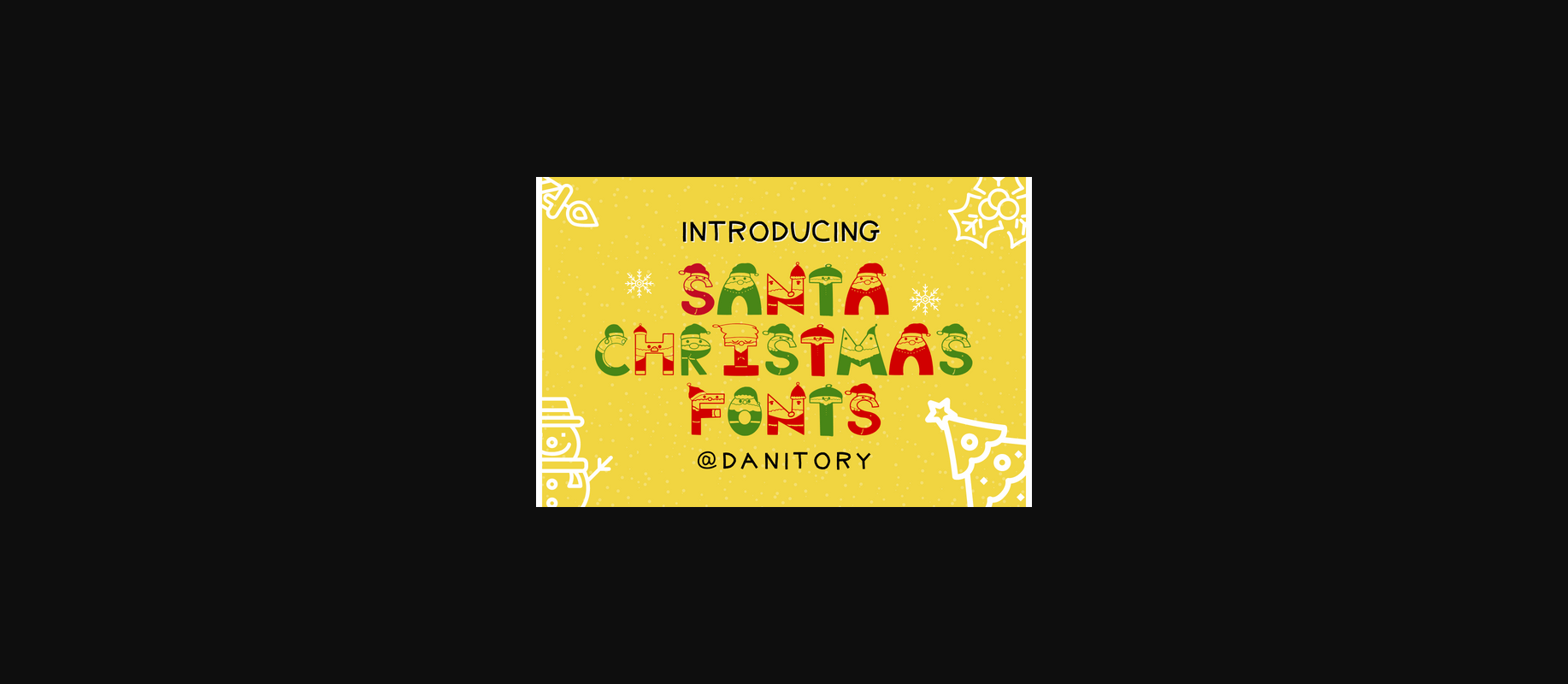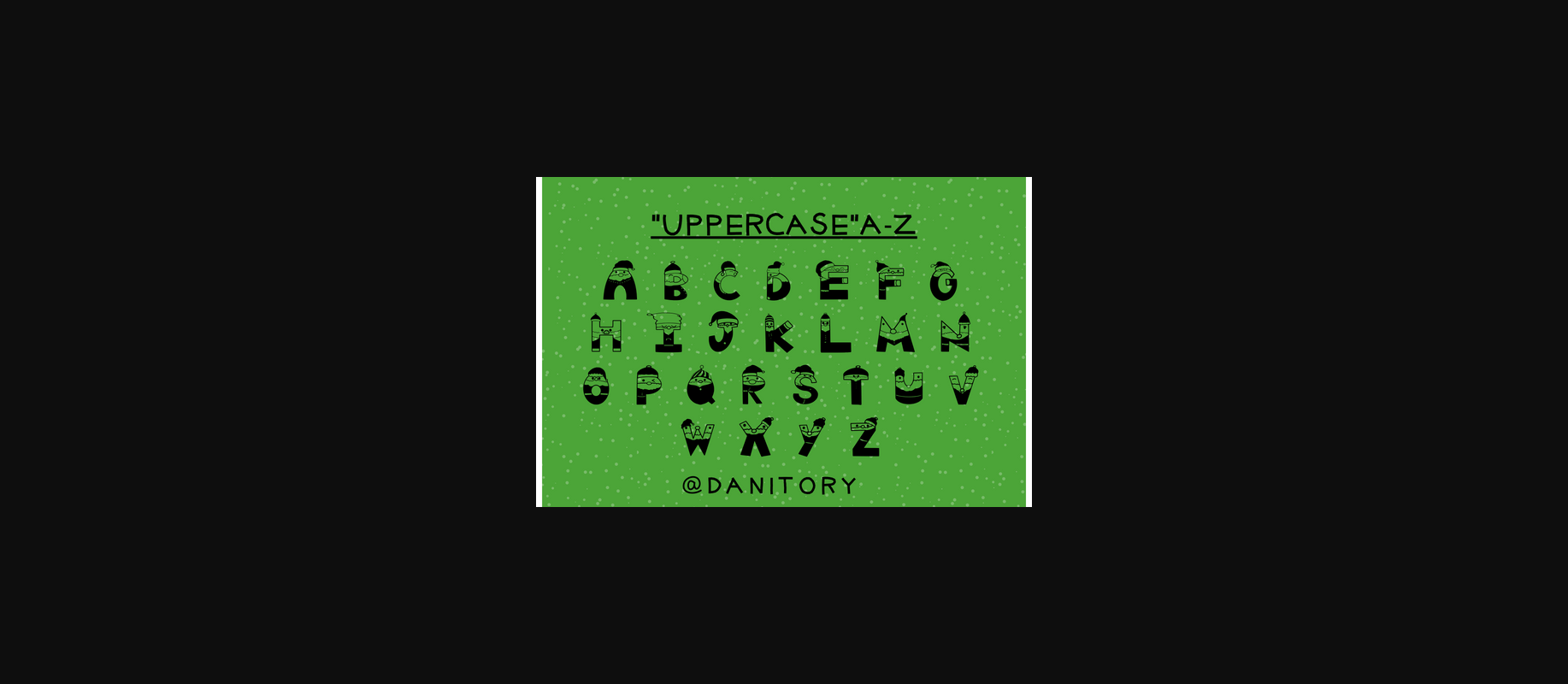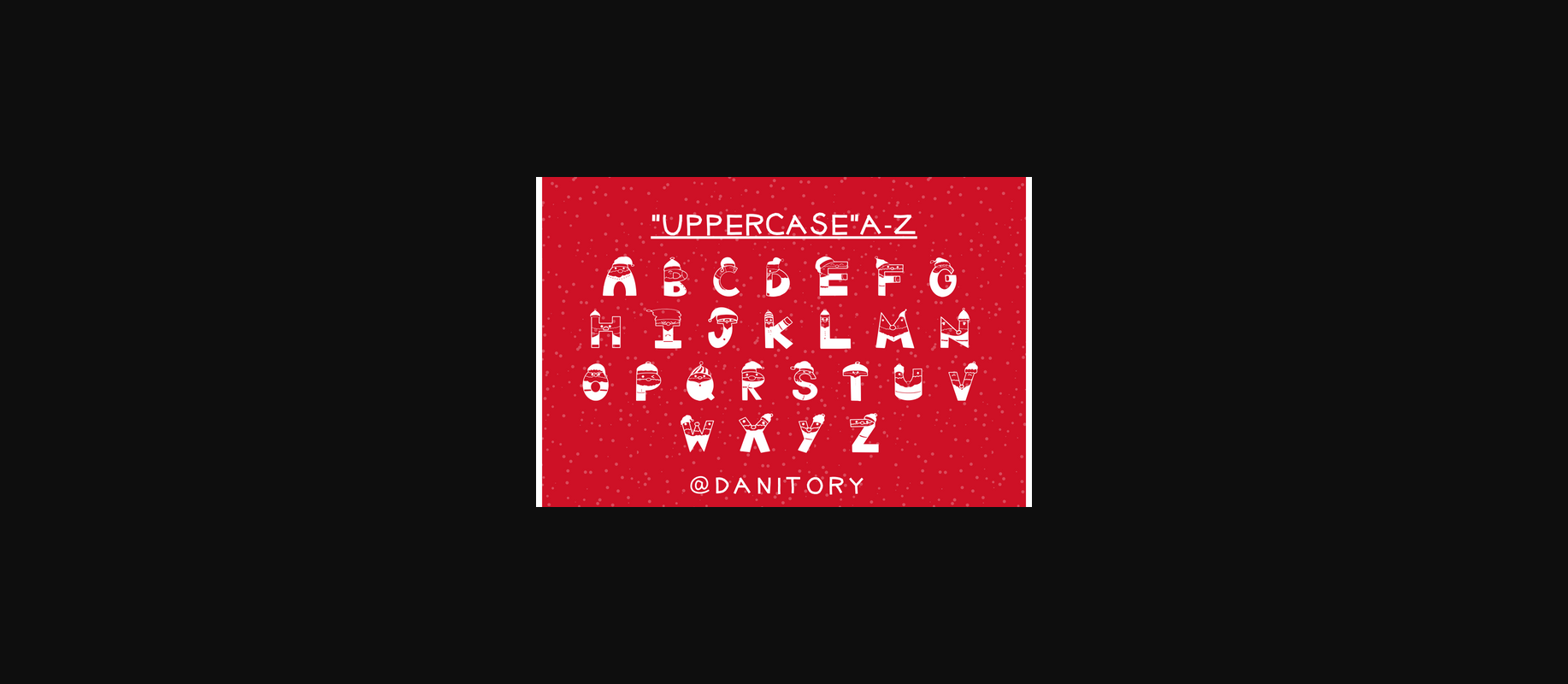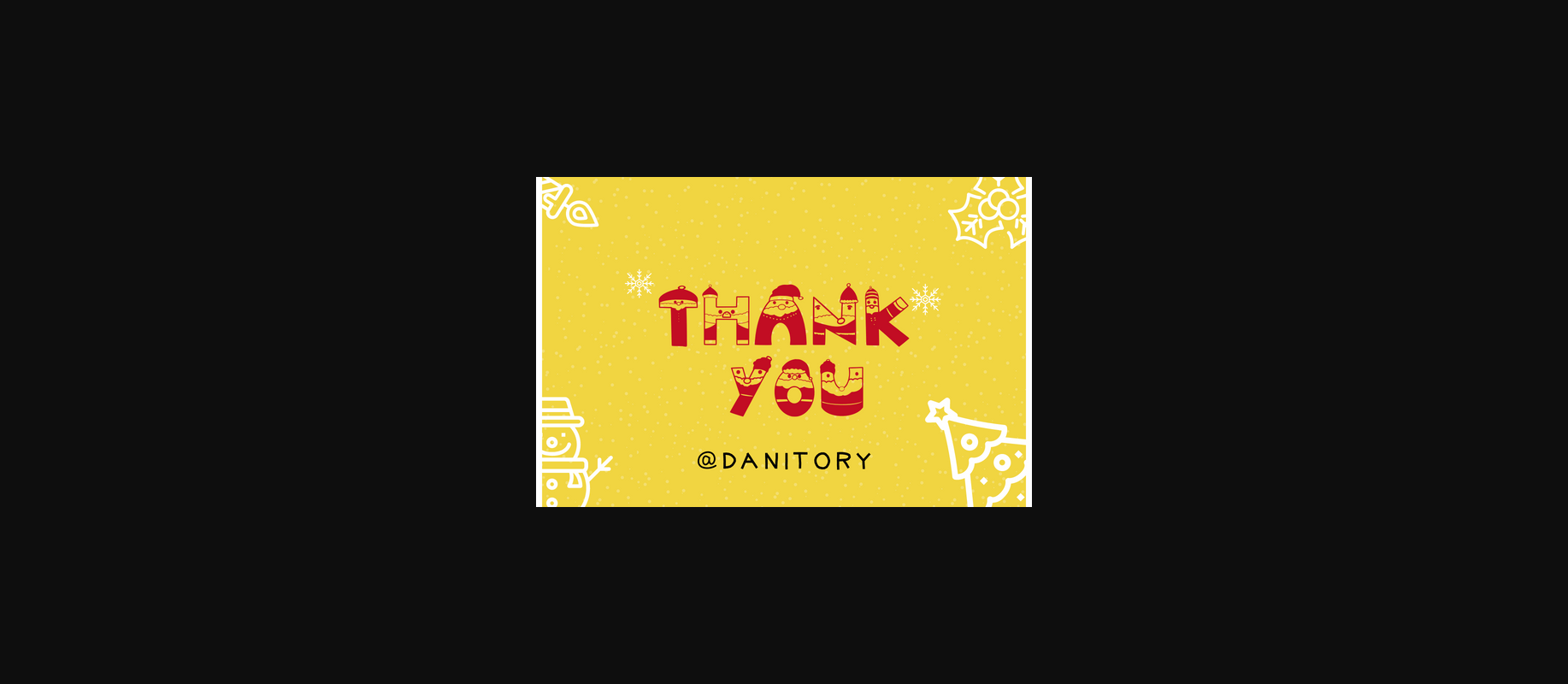
Christmas Santa is a cute decorative font designed for the upcoming Christmas season. Add it to your festive crafty ideas and you will be amazed by the outcome generated!